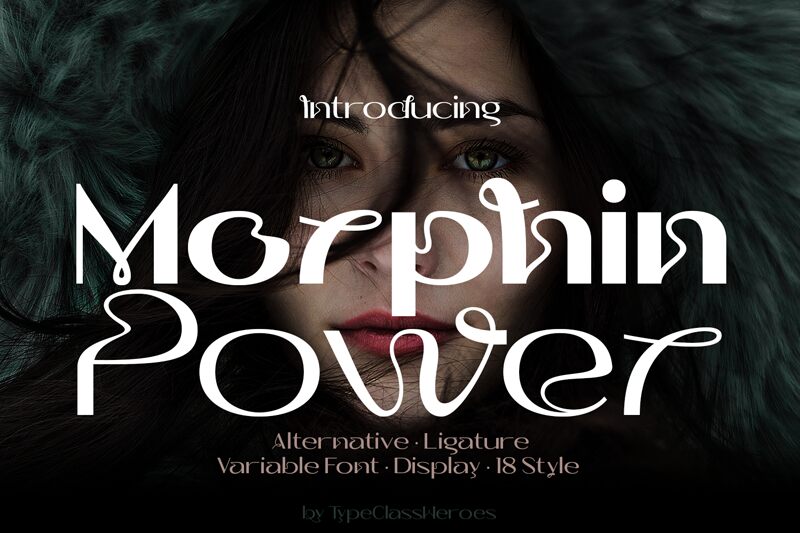
Morphin Power Demo Black
Morphin Power Black brings a blast from the past with its unmistakably retro vibe, crafted by TypeClassHeroes. Its bold and expanded characters exude confidence, making a robust statement on any canvas they grace. The font's generous curves and striking presence hark back to an era of design that was unafraid to be noticed.
Ideal for headlines that demand attention or projects looking to inject a sense of nostalgia, Morphin Power Black is perfectly suited for branding, poster design, and any context where the aim is to make an impactful visual declaration. The font’s style resonates with those looking to capture the essence of vintage aesthetics while maintaining modern sensibilities.